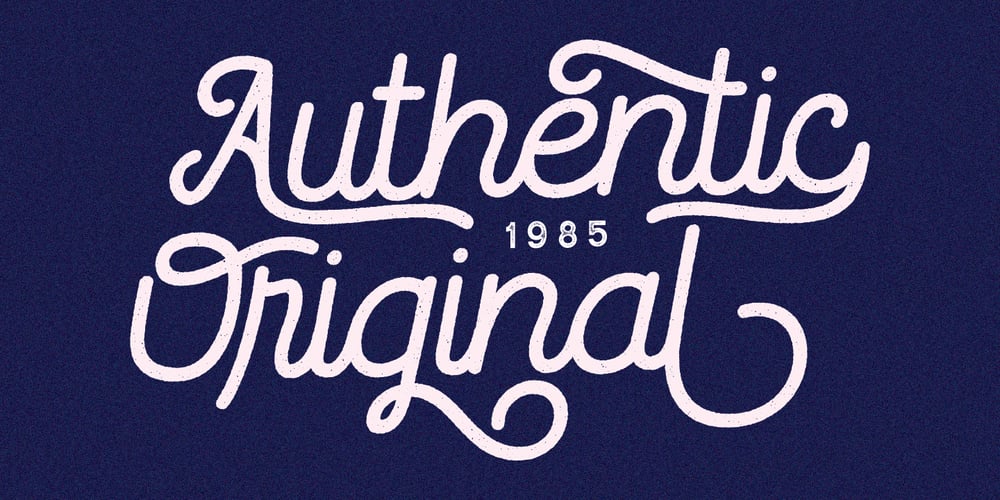
Routerline Rough Font Family was designed by Lukman Hidayat and published by Viaction Type.Co. Routerline Rough contains 4 styles and family package options. Routerline Rough is a script monoline with 4 styles, nice applied in various products. Complete with multilingual characters, ligature and alternate. It is suitable for quote, clothing design, vintage logo, label, poster, packaging design and other designs. File Include (All Styles) : Routerline Rough.otf Routerline Rough.ttf Routerline Rough Slant.otf Routerline Rough Slant.ttf Routerline Rough Bold.otf Routerline Rough Bold.ttf Routerline Rough Bold Slant.otf Routerline Rough Bold Slant.ttf Features (PUA Encoded) : UPPERCASE. LOWERCASE. MULTILINGUAL. PUNCTUATION & SYMBOL. STYLISTIC SET. LIGATURE. I hope you enjoy and thank you.